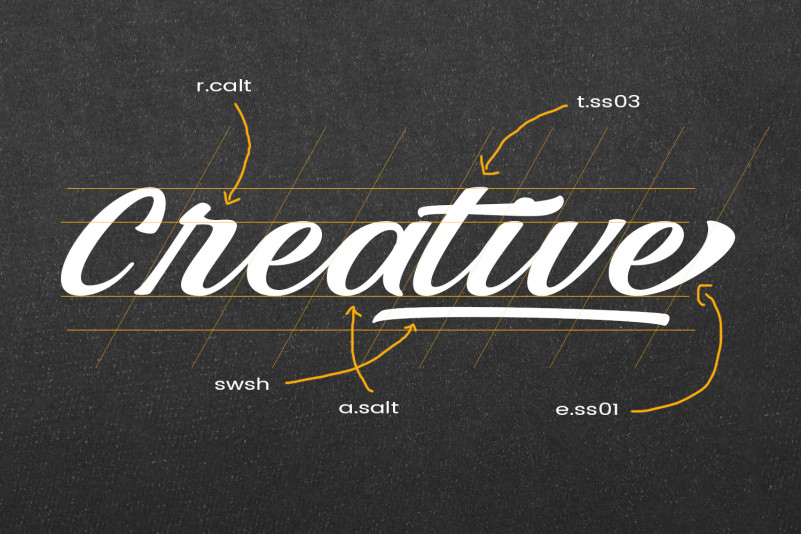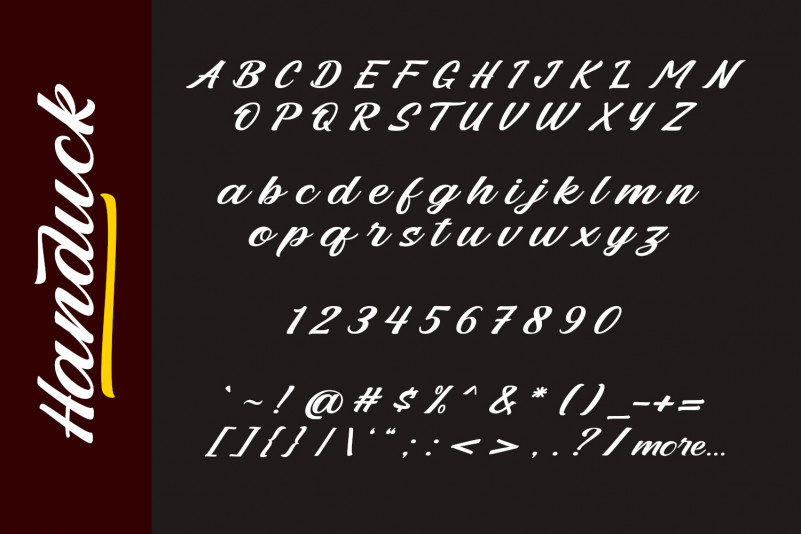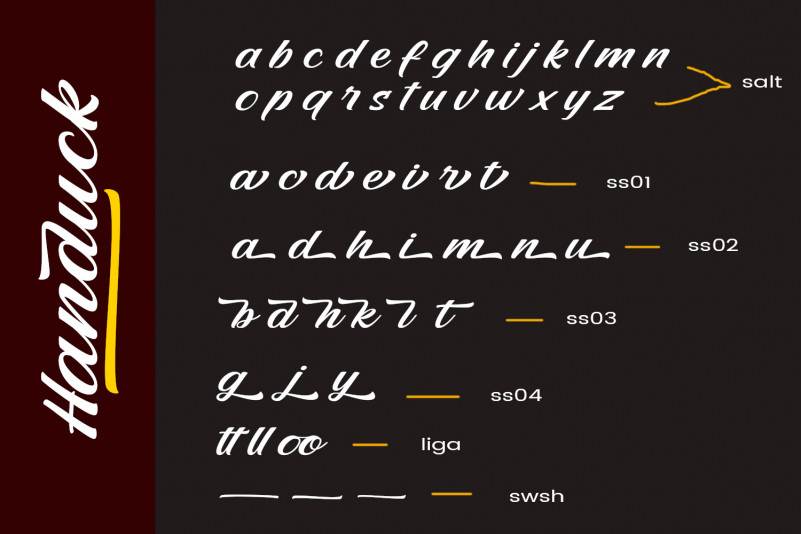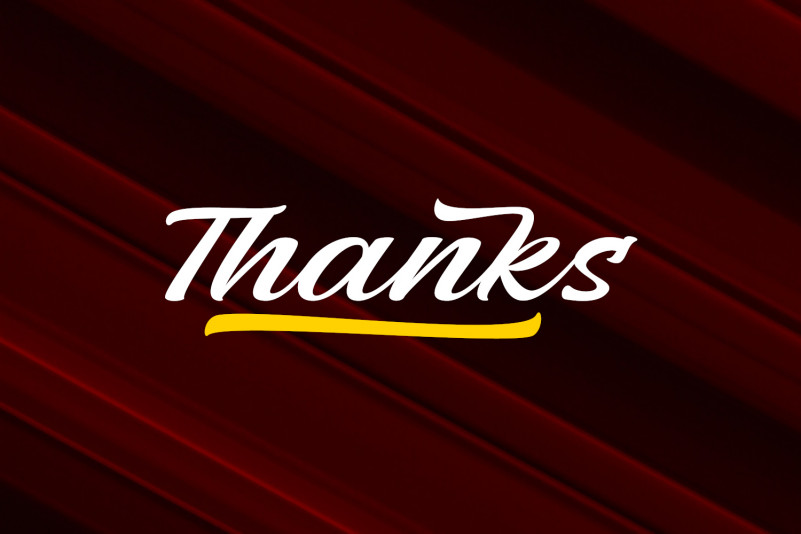
Handuck Font
Handuck Script Font
This is a gorgeous and thick, brushed handwritten font, crafted to give your headlines and logotype projects a stylish touch. This font reads as strong, confident, and dynamic and can add tons of nostalgic character to your designs.